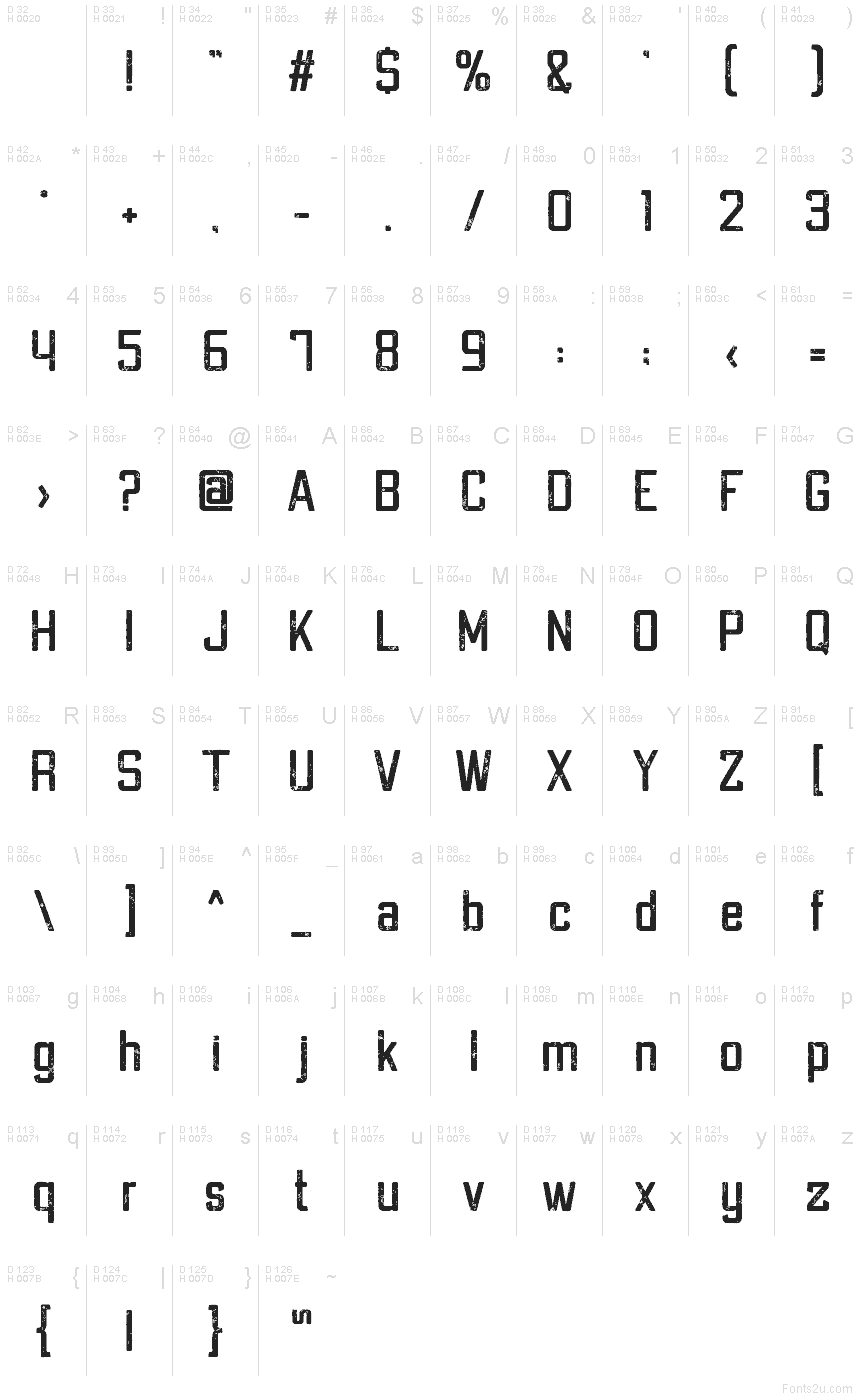
Molard Three
Molard Three font by PutraCetol Studio is a display font designed for projects with an industrial feel. Its distressed and grungy appearance gives it a rugged style reminiscent of the past. Every letter shows clarity within its uneven lines and eroded texture, presenting an interesting vintage-inspired rendering. Condensed width comes as another important characteristic that gives this professional design uniqueness.
Free for personal and commercial use, Molard Three is suitable for all types of edgy projects such as T-shirt printing, book cover designs, logo design, title creation, poster prints, advert banners with impressive headings, product packaging designs for handbags or sneakers among others.